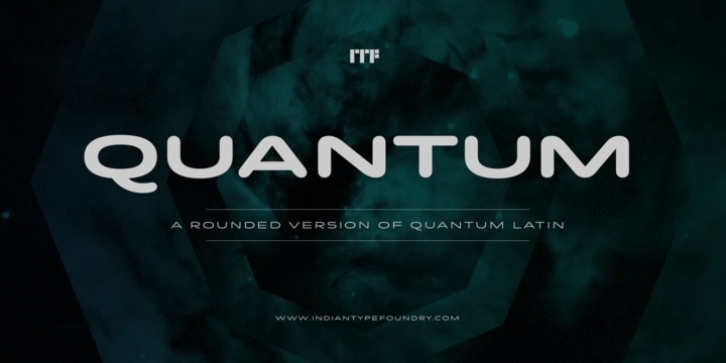
Quantum Latin Rounded was designed by Hitesh Malaviya and published by Indian Type Foundry. Quantum Latin Rounded contains 5 styles and family package options.
A very friendly-looking sans, Quantum Latin Rounded is part of Hitesh Malaviya's Quantam Multi-Script series. Quantum Latin Rounded's five styles are feature letters so wide that they are almost panoramic, and thanks to its stroke-terminals, Quantum Latin Rounded is a typeface for the social media age. Despite having the bones of an extended sans, the letterforms in Quantum Latin Rounded aren't too technical in their appearance. Don't overlook the tails on 'K,' 'Q,' 'R,' and 'k'!